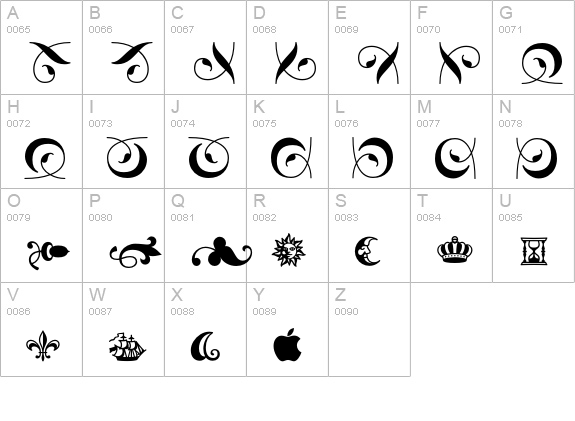
HoeflerTextOrnaments Font Details
HoeflerTextOrnaments is a captivating and elegant font that adds a touch of sophistication and charm to any design project. Featuring ornate embellishments and decorative elements, this font is perfect for creating eye-catching invitations, posters, and other creative works. Its intricate details and timeless style make it a versatile choice for both print and digital applications. What sets HoeflerTextOrnaments apart is that it is available for free download at FontsMarket.com. This means that you can easily access this beautiful font without any cost, making it a valuable addition to your font collection. Whether you're a designer looking to elevate your projects or simply appreciate the beauty of ornamental typography, HoeflerTextOrnaments is sure to inspire and delight. Download it today and enhance your designs with its exquisite details and classic appeal.